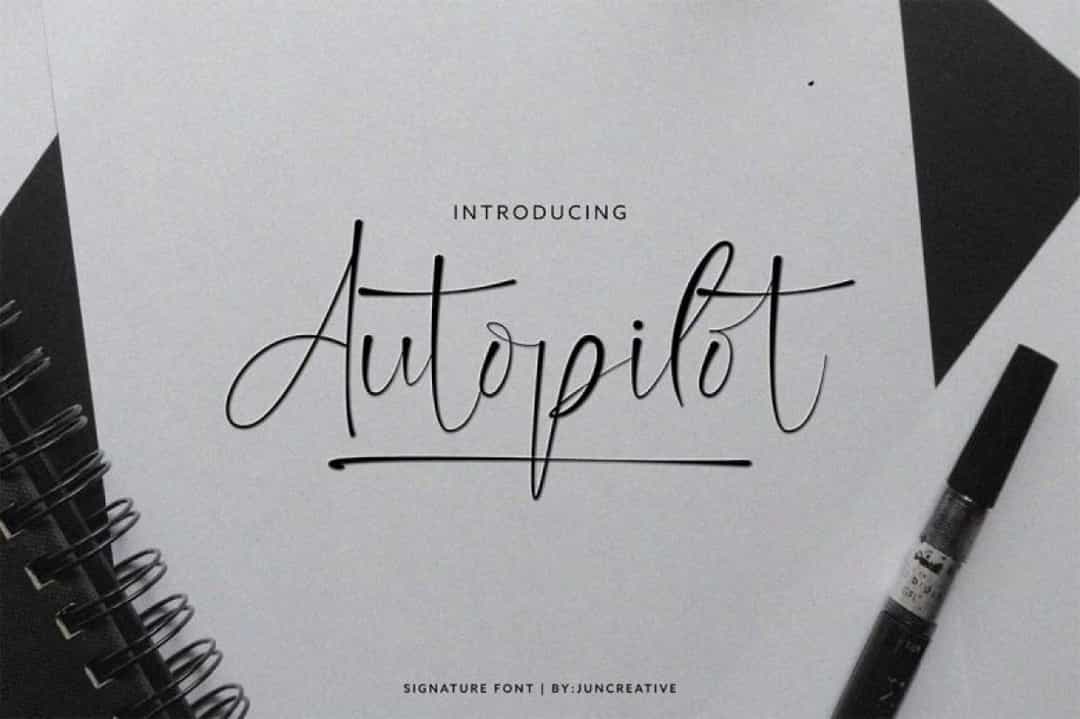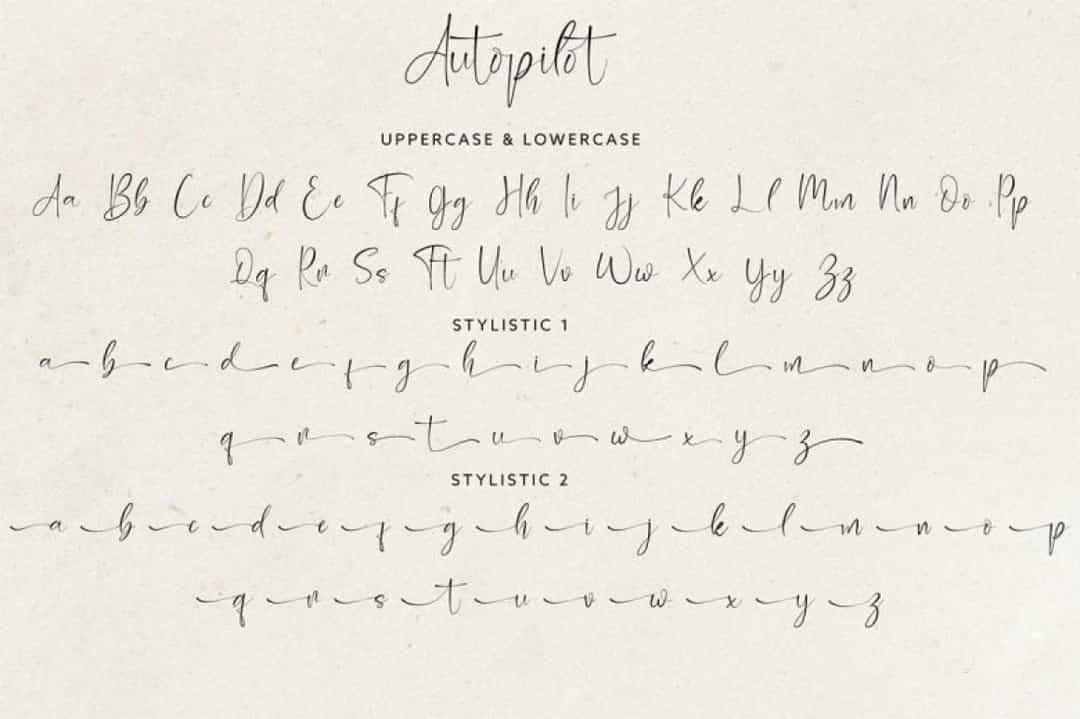
Autopilot is an elegant font with handwritten look and feel; the strokes are smooth and harmoniously flow one into the other. These are PUA encoded which means that all the Swashes and Glyphs can be easily accessed and used!